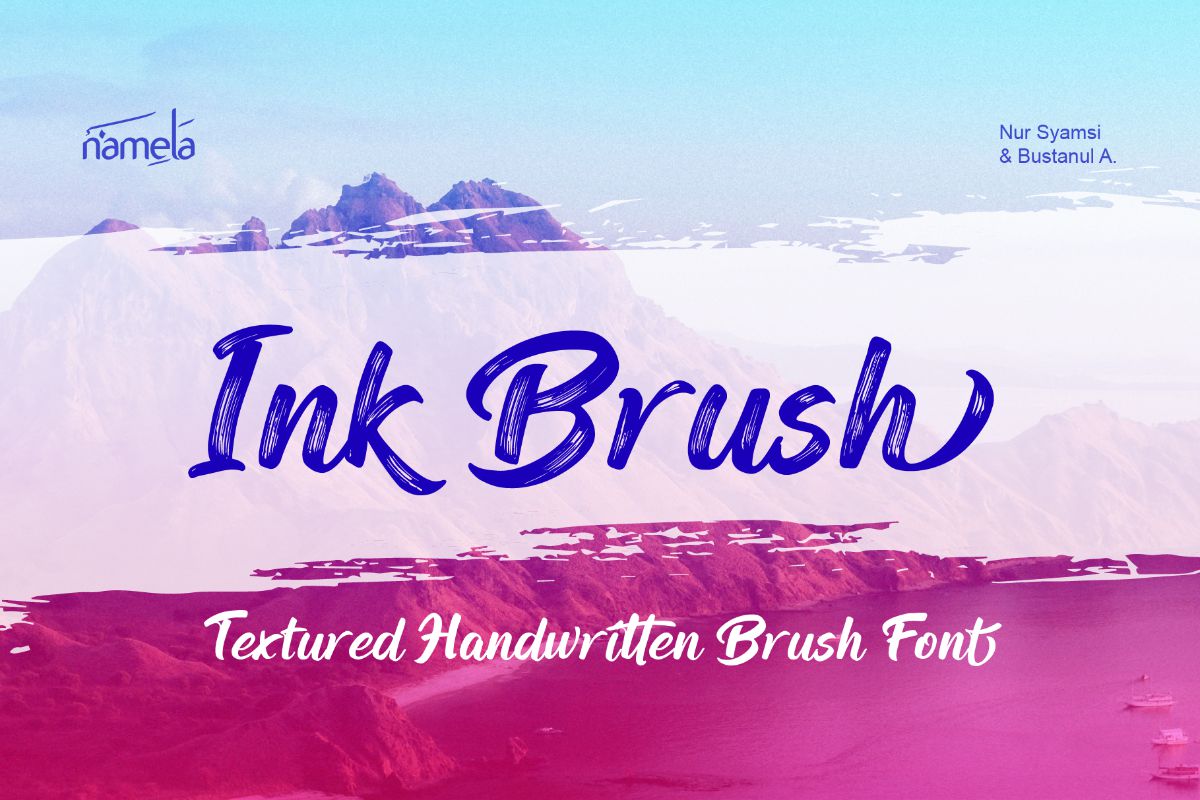
Ink Brush Textured
Ink Brush Font - A Textured Handwriting Brush Typeface for Branding & Social Media There’s a reason the most memorable brand identities often feel human. In a design world dominated by clean geometry, something raw and expressive stands out. Ink Brush is created for exactly that purpose—a textured handwritten font that captures the energy of real brush lettering with striking authenticity. Developed by Namelatype, Ink Brush Textured Handwriting Brush Font embraces imperfection—natural ink text